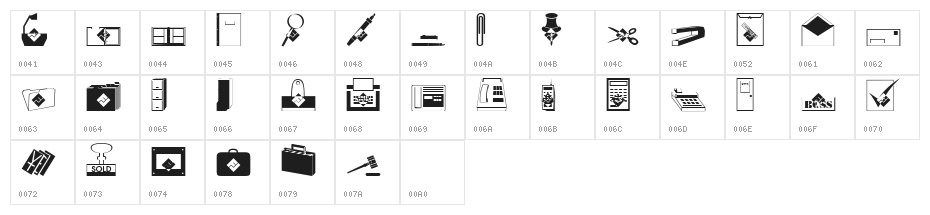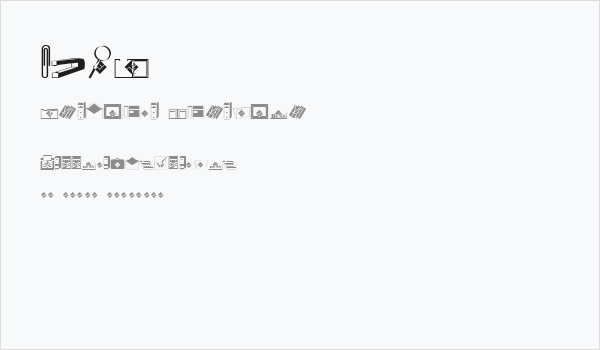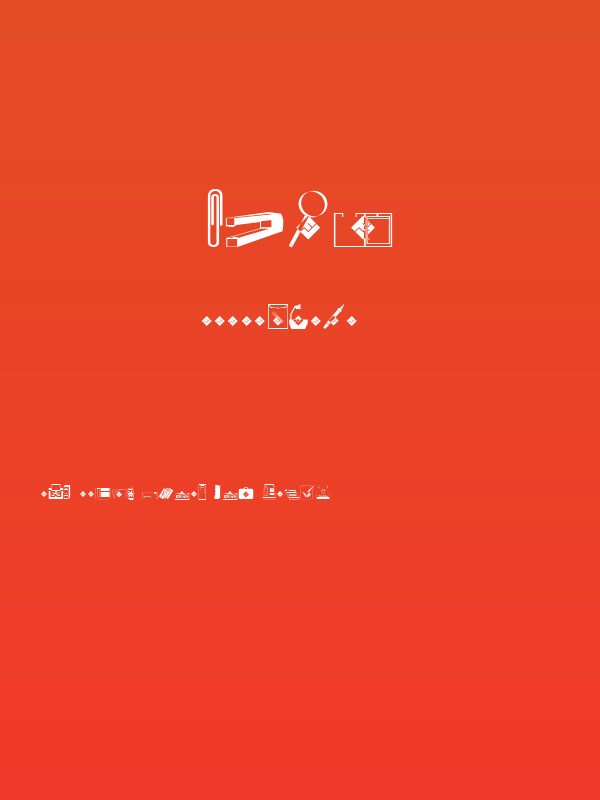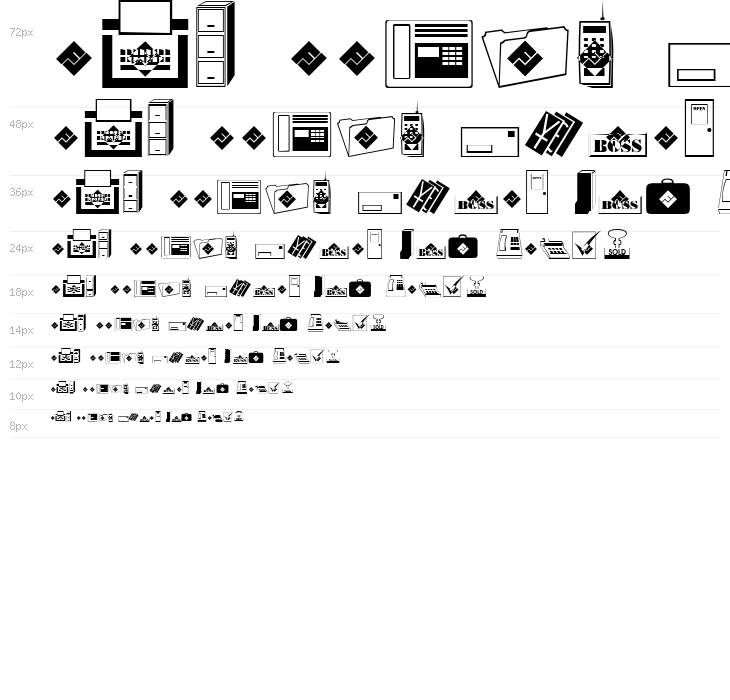
JNFC Font
JNFC Description
A decorative dingbat font featuring various office and business-related icons such as folders, envelopes, calculators, pens, briefcases, and other stationery items. The icons are rendered in a bold, high-contrast, black-and-white style, suitable for visual embellishments.
| Overall Style | Decorative, Modern |
| Use Case | Icons, Visual accents, Themed graphics |
| Proposed Projects | Business presentations, office signage, infographics, educational materials, themed invitations. |